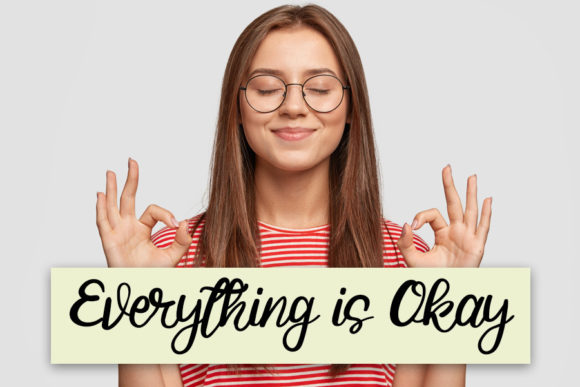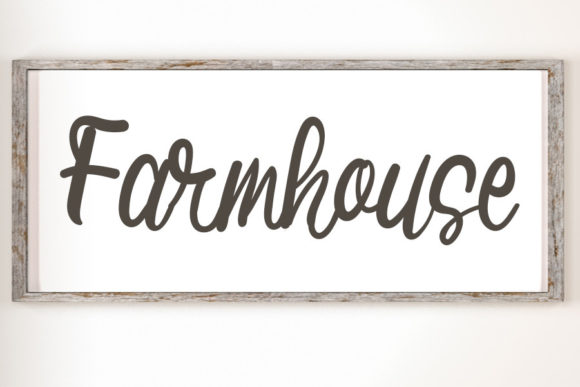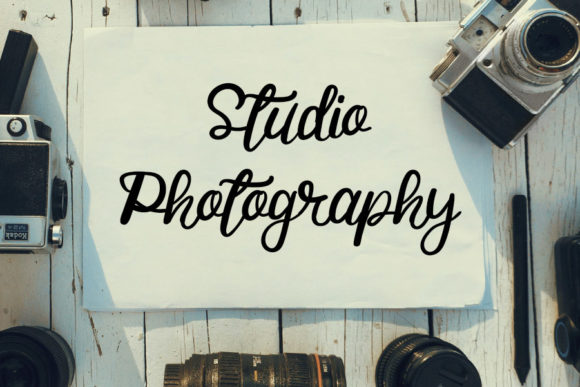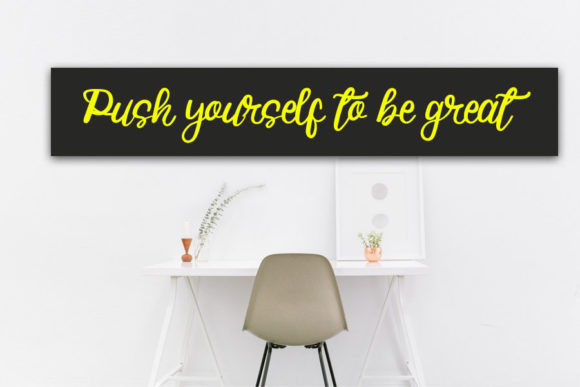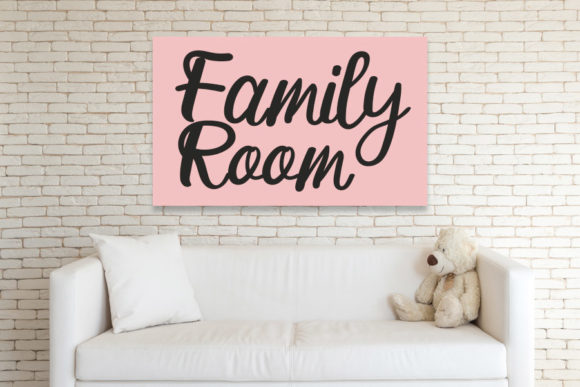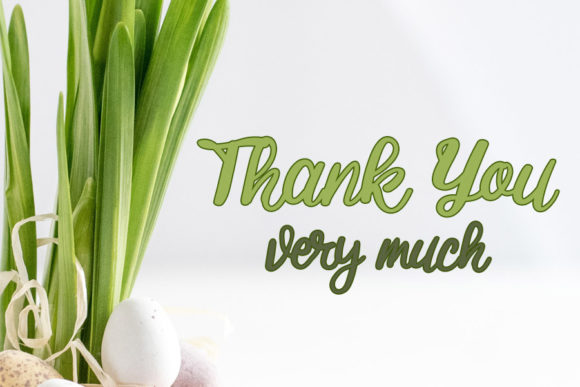
The Perfect Partner for Your Creative Projects: Ballerina Font
Have you ever sat at your desk, staring at a blank page, waiting for inspiration to strike? It’s a moment we’ve all been in, where the blank slate seems daunting and creativity feels elusive. But what if we told you that there’s a secret to unlocking your full potential, and it’s hidden in the delicate lines of the Ballerina Font?
This beautiful, handwritten font is more than just a pretty face – it’s a tool designed to bring your most creative ideas to life. With its elegant and flowing characters, Ballerina Font is the perfect partner for designers looking to add a touch of sophistication and whimsy to their projects. Whether you’re working on a wedding invitation, a children’s book, or a marketing campaign, this versatile font is sure to elevate your designs and make them truly unforgettable.
- Font Family: Ballerina is a script font, designed to evoke a sense of elegance and sophistication.
- Unique Characteristics: Ballerina features a flowing, handwritten style with subtle connections between letters, giving it a natural and organic feel.
At first glance, Ballerina font is a stunning, elegant script that exudes sophistication and refinement ✨. Its flowing curves and refined letterforms evoke the classic ballerina silhouettes, making it perfect for projects that require a touch of whimsy and romance.
Here are some aspects where Ballerina truly shines:
- Unique, flowing design ✨
- Perfect for wedding invitations, fashion labels, and other projects requiring a touch of elegance
- Smooth, connected strokes give the font a dynamic feel
- May not be suitable for projects requiring a bold, strong font ⚠️
- Some characters may be difficult to read at smaller font sizes
- May not be as versatile as other fonts in different contexts
Overall, I would say that Ballerina font is a beautiful addition to any designer’s toolkit. While it may have its limitations, its unique design and elegance make it perfect for the right projects. With some careful consideration, Ballerina can add a touch of magic to your designs ✨.
For a more elegant look, pair the Ballerina font with a simple background and minimal design elements.
For a unique look, experiment with combining the Ballerina font with hand-drawn illustrations or watercolor effects.
For a professional look, pair the Ballerina font with a clean and modern template.
The Ballerina font is ideal for:
Children’s book illustrations
Floral and garden-themed designs
Any project requiring a delicate and elegant touch